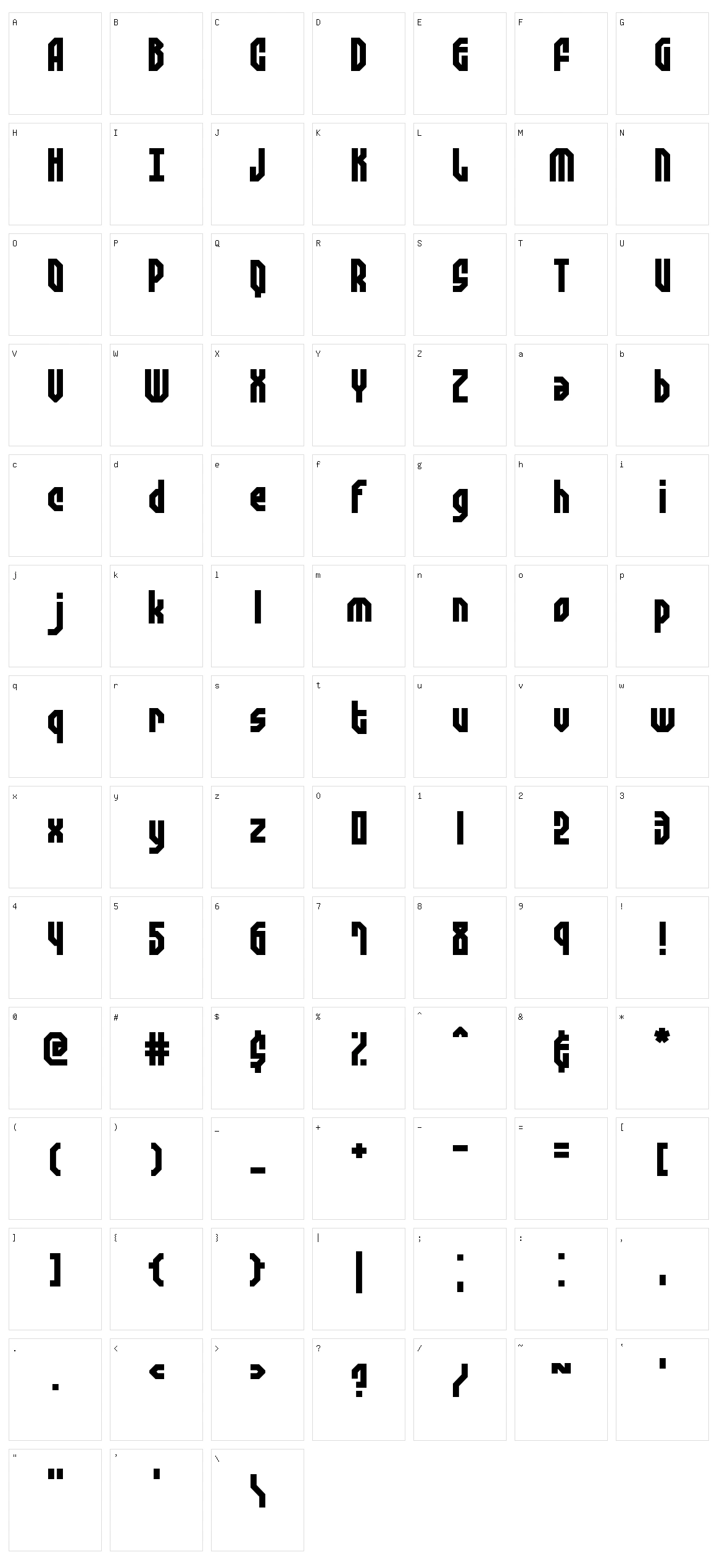
Zephyrean Created by Brian Kent
-Zephyrean
-Zephyrean Gust
There are some alternative extra characters included in These fonts.
[Zephyrean]
[Zephyrean Gust]
S = Ô = ALT+0212
t = Õ = ALT+0213
X = Ö = ALT+0214
Y = × = ALT+0215
Y = Ø = ALT+0216
2 = Ù = ALT+0217
2 = Ú = ALT+0218
3 = Û = ALT+0219
6 = Ü = ALT+0220
7 = Ý = ALT+0221
$ = Þ = ALT+0222
& = ß = ALT+0223